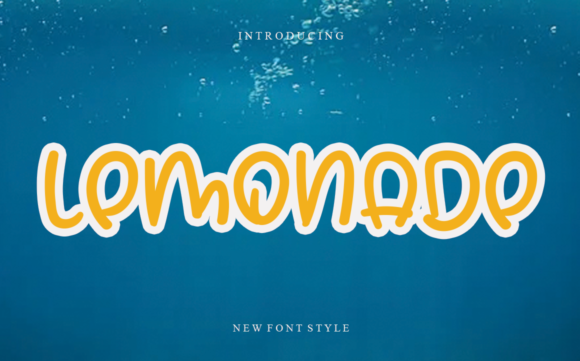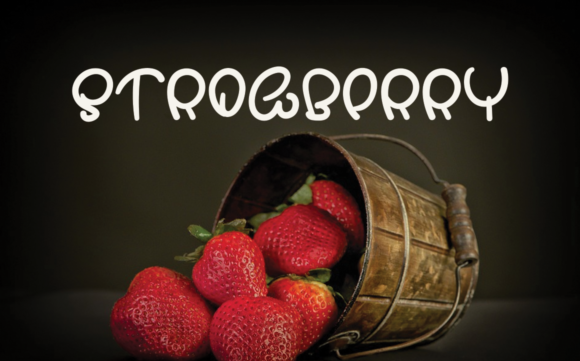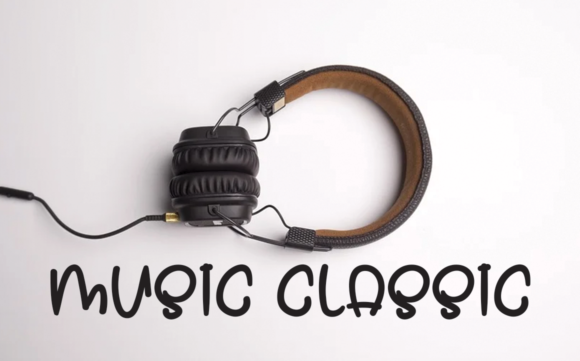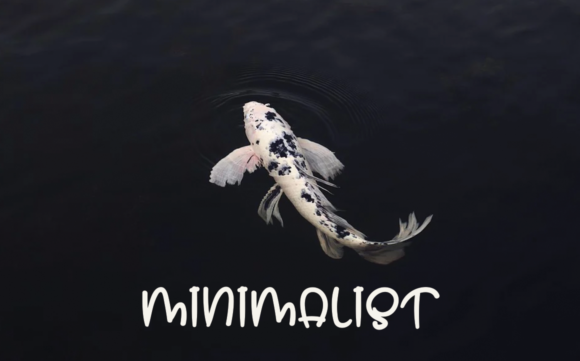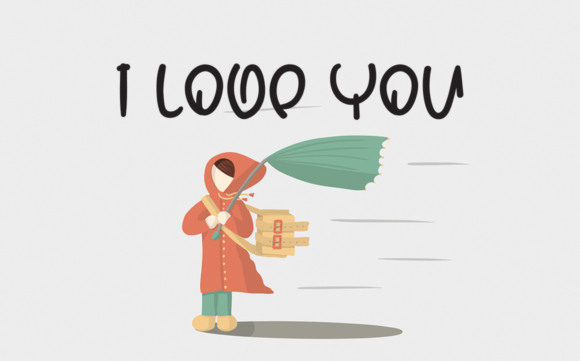
Lemonade Font
About Lemonade Font
Lemonade is a cute, quirky and friendly handwritten font. It embodies playfulness and authenticity and is the perfect choice for any children activity or school project.